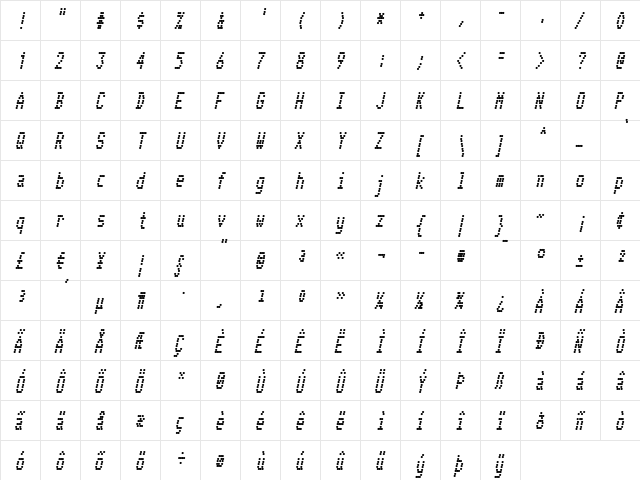
Telidon Cd Bold Italic
Design Context for Telidon Cd Typeface
Telidon Cd takes a measured approach to typography — its balanced proportions and neutral character make it a reliable workhorse for both digital and print work. Its italic angle brings a sense of urgency and motion to the letterforms. The heavy weight commands attention and anchors typographic hierarchies.
Pro Tip: Use Telidon Cd for emphasis, pull quotes, and subheadings where its slanted energy can add rhythm to the layout.